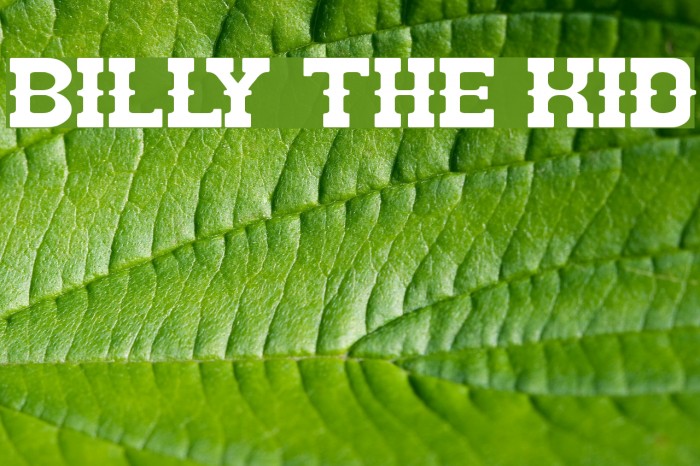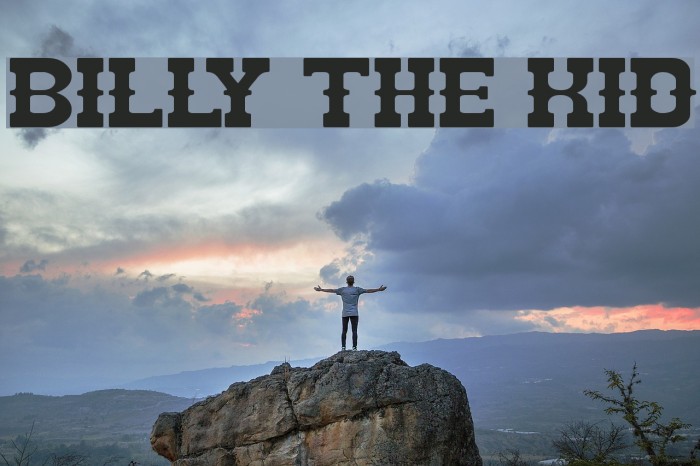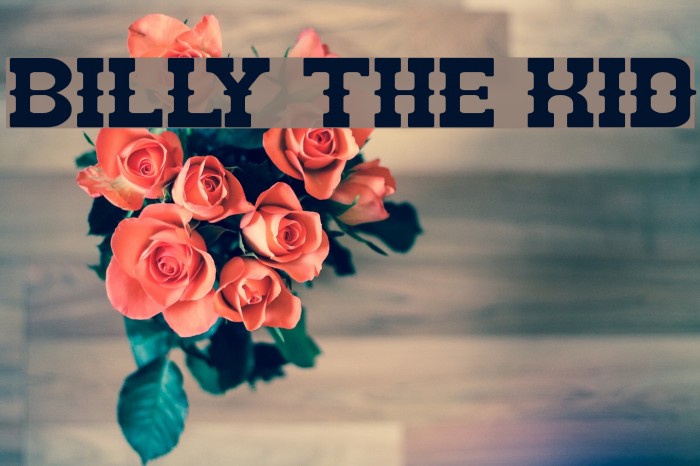
BILLY THE KID Font
This font exhibits a bold and robust slab serif style, characterized by thick, block-like serifs and a strong presence. The uppercase letters are uniform in height, with a consistent weight throughout each character, giving it a sturdy and reliable appearance. The numerals and special characters maintain this boldness, ensuring a cohesive look across all glyphs. The font's design is reminiscent of classic Western typography, often associated with vintage posters and signage. Its bold strokes and prominent serifs make it highly legible from a distance, ideal for impactful headlines or titles.
A bold, slab serif font with a vintage Western style.
- Proposed Projects: Perfect for Western-themed designs, vintage posters, signage, and any project requiring a strong, bold typeface.
- Category: Slab Serif
- Overall Style: Vintage